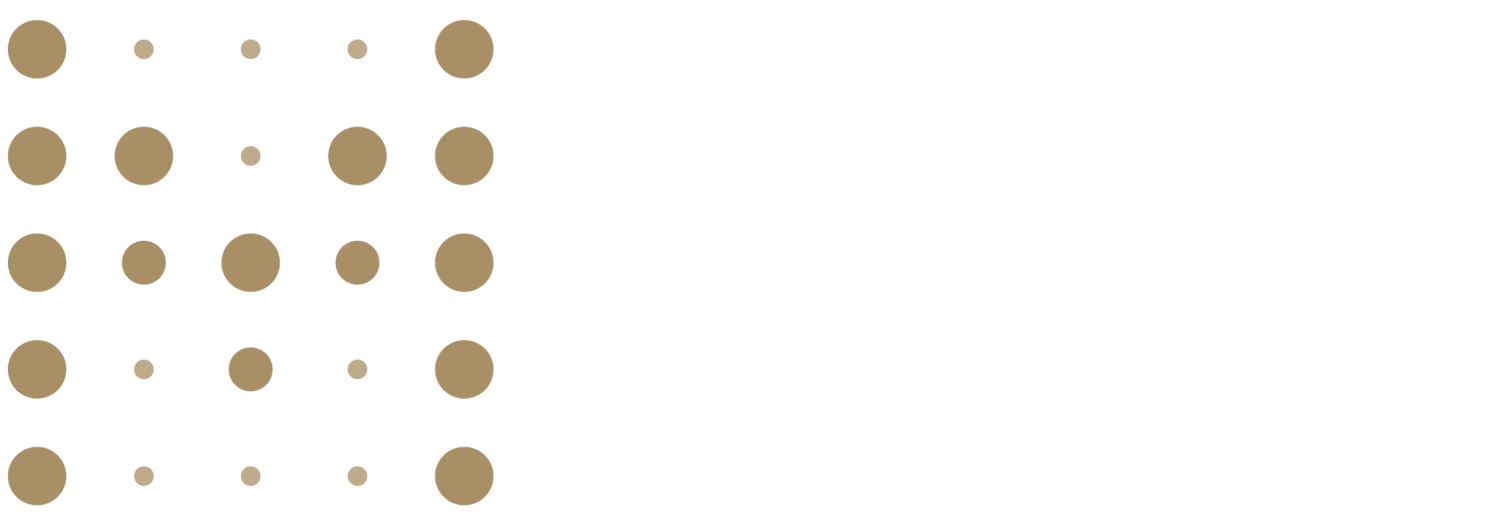
Logo with a transparent background, beige dots arranged in a grid pattern on the left, and the word 'Matrix' in white text on the right.
Matrix Strategic Partners
The mission of Matrix Strategic Partners is to build championship cultures through consulting and seminars. The brand identity and website needed to be minimal and scrutured to not only represent a matrix itself, but also represent the years of coaching experience they bring to the table.
Person in black sleeveless shirt and black shorts holding a black basketball outdoors. A white logo for Matrix Strategic Partners over top of it.
Logo for Matrix Strategic Partners featuring a grid of gold dots and the company name in navy blue, with the descriptor 'Strategic Partners' underneath.
The dots also pay homage to scoreboards seen hanging in sports arenas and buildings all over the world
The various sizes of dots inside the matrix create an “M” Silohoutee
The equal amount of rows and columns of dots mimics a numerical matrix
Computer monitor displaying a Matrix Strategic Partners website titled "Building Championship Cultures," with images of people gathered in discussion or listening to a coach, set against a dark blue background.
Black and white photo of a basketball player with tattoos, viewed from behind, wearing a tank top, looking to the right.
A wooden artist mannequin holding a dark blue rectangular business card with a pattern of small circular holes arranged in a square in the center representing the "M" submark for Matrix Strategic Partners.
Black t-shirt hanging on a hanger with the words 'Championship Culture' printed on it for Matrix Strategic Partners.
Dark blue background with a grid of gold dots representing the submark of Matrix Strategic Partners.
A vertical banner featuring the logo and name of 'Matrix' at the top, with a black-and-white photo of a woman with curly hair, wearing a headband, speaking passionately and coaching a group of children.
Six minimalist line art icons related to data analysis and project management, arranged in a 3x2 grid. The top row includes a scatter plot with a trend line, a trophy on a podium, and a flowchart with geometric shapes. The bottom row features a hierarchical diagram, and a decision tree with X and O symbols.
Business card with a dark blue background on top and white background below, displaying the logo and name 'Matrix' on the top card, and contact information for John Griff below.
Collection of abstract white geometric and symbol designs on a black background, arranged in four rows. Preliminary sketches for Matrix Strategic Partners.
A black and a white insulated bottle with the brand name 'Matrix' on them, placed on a minimalist platform against a neutral backdrop.
Mobile and tablet screens displaying a website for 'Matrix' with a black-and-white group photo of people wearing Black Rivas t-shirts and caps, and text about building championship cultures for Matrix Strategic Partners.
Color palette with four vertical stripes: white, gray, navy blue, and tan. Each stripe has a dotted pattern at the bottom. Matrix Strategic Partners.
Multiple website mockups for a leadership training company called Matrix Strategic Partners, featuring a dark blue and white color scheme with images of people in training or sports activities.